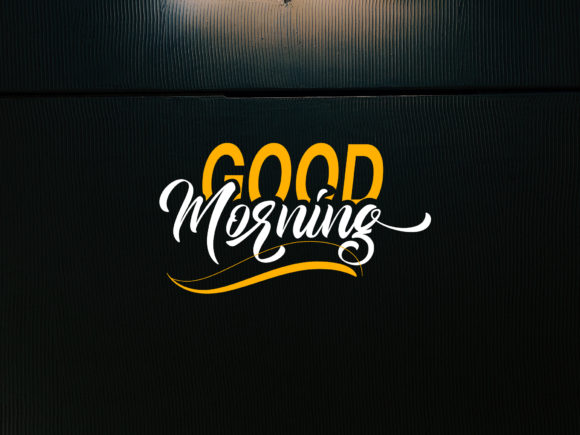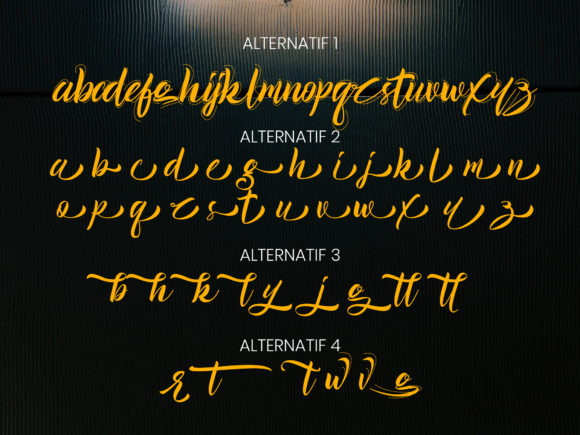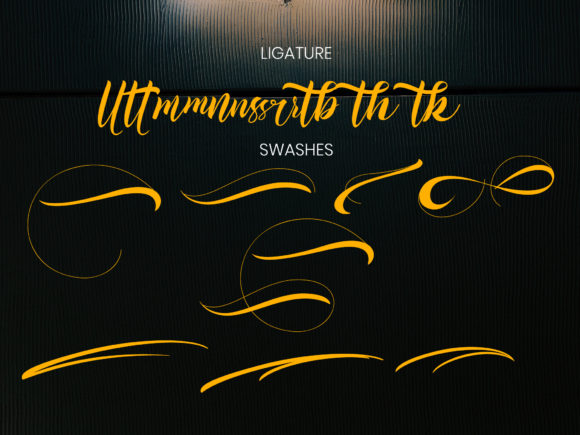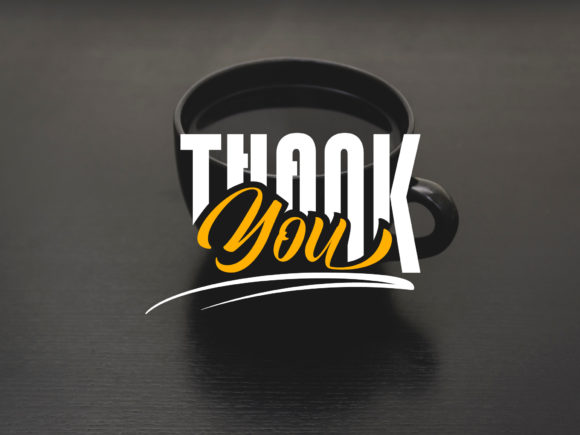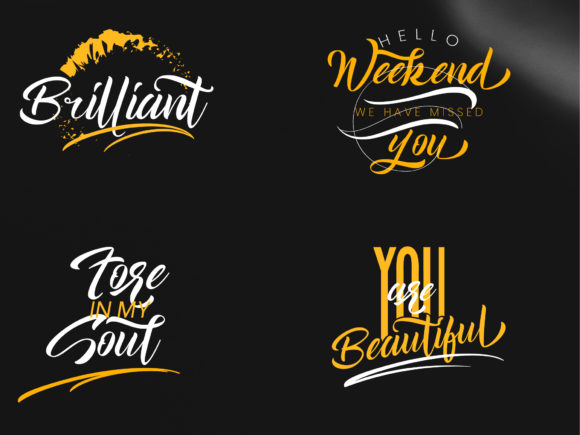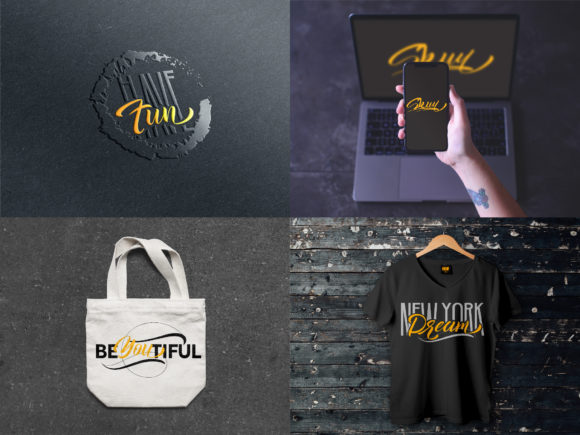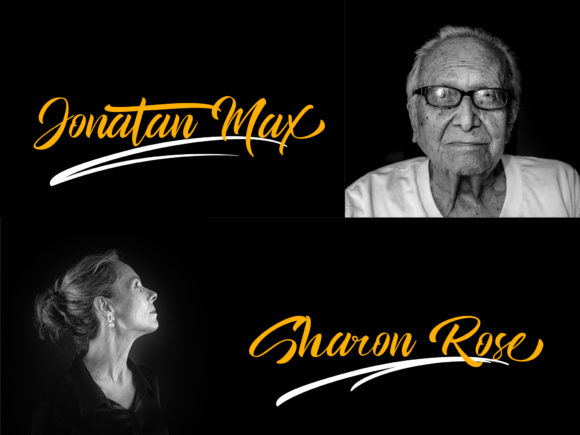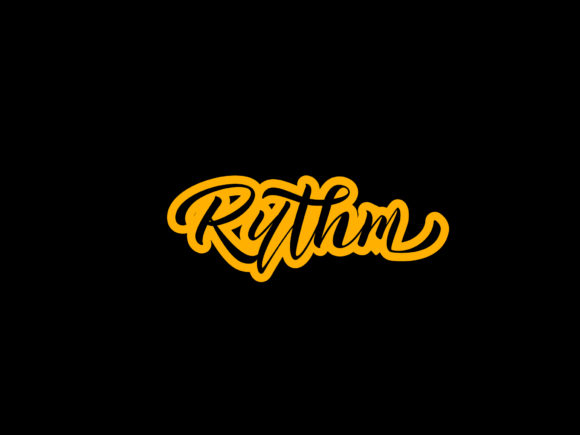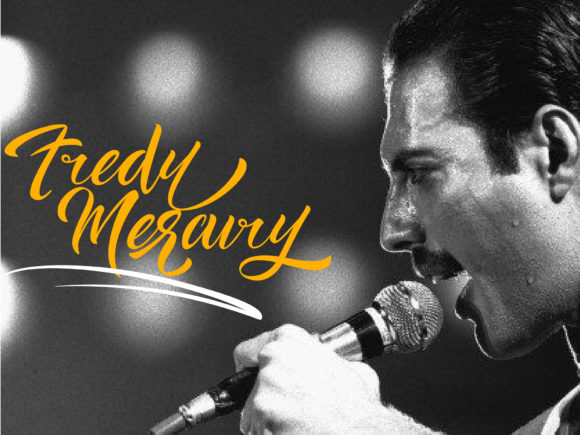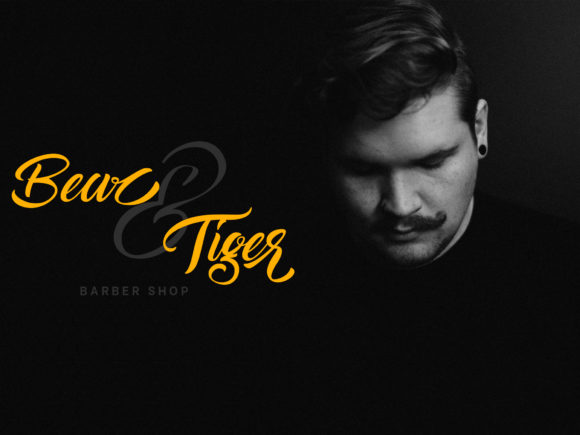
HomeScript FontsGood Morning Font Script Fonts Good Morning Font FacebookXPinterestWhatsApp Good Morning Font Poster 2 Good Morning Font Poster 3 Good Morning Font Poster 4 Good Morning Font Poster 5 Good Morning Font Poster 6 Good Morning Font Poster 7 Good Morning Font Poster 8 Good Morning Font Poster 9 Good Morning Font Poster 10 Good Morning Font Poster 11 Good Morning Font Poster 12 About Good Morning Font Good Morning is an incredibly sweet and charming script that will easily spice up your next design! DOWNLOAD ON CREATIVE FABRICAThis font is sold and delivered by Creative Fabrica. Font Canyon may earn a commission if you buy through this link. People also explored Tremline Font Porter Cut Haystay Melody Font Baltism Font The Gloomy Font Astriam Font Ericsand Font Jules Thicket Font Smiley Font 289 0 TagsGood Morning Font Previous articleRomances on Saturday Night FontNext articleAndrographis Font LEAVE A REPLY Cancel reply Comment: Please enter your comment! Name:* Please enter your name here Email:* You have entered an incorrect email address! Please enter your email address here Website: Save my name, email, and website in this browser for the next time I comment. Personal Use Free Loving You Personal Use Free Read more about this font Pelmeshka Personal Use Free Read more about this font Xplor Personal Use Free Read more about this font Elsabetha Personal Use Free Read more about this font BLOG How to Install and Use Fonts on Windows, macOS, and Web Projects How to Install and Use Fonts on Windows, macOS, and Web Projects Fonts are a crucial part of design and branding. Whether you’re designing a... Fonts That Capture the Spirit of New York City Exploring Font Trends Using Fonts in Digital Marketing: Tips to Strengthen Your Brand Identity